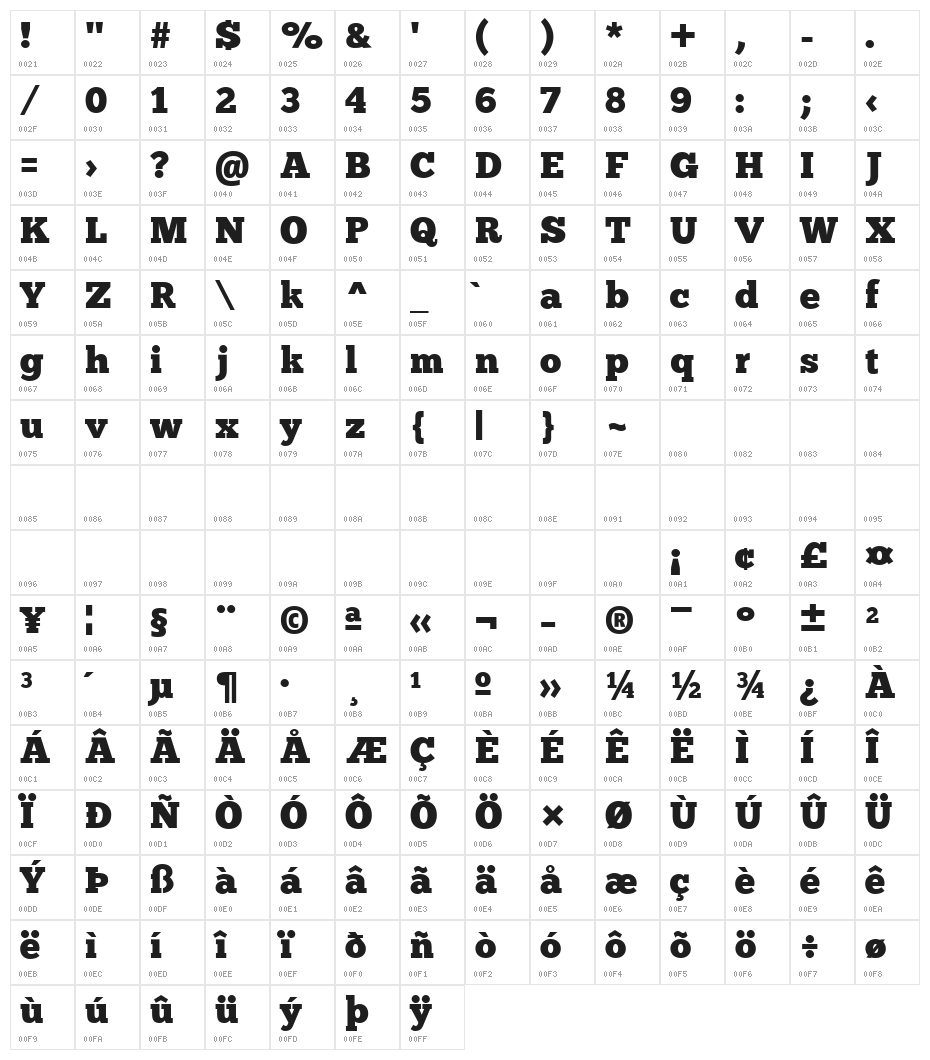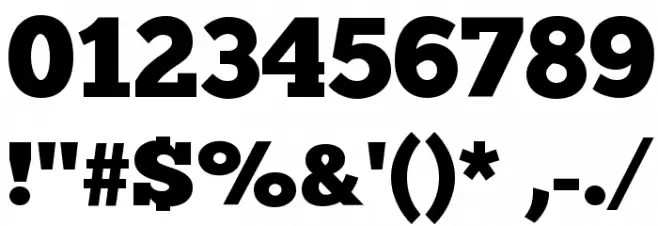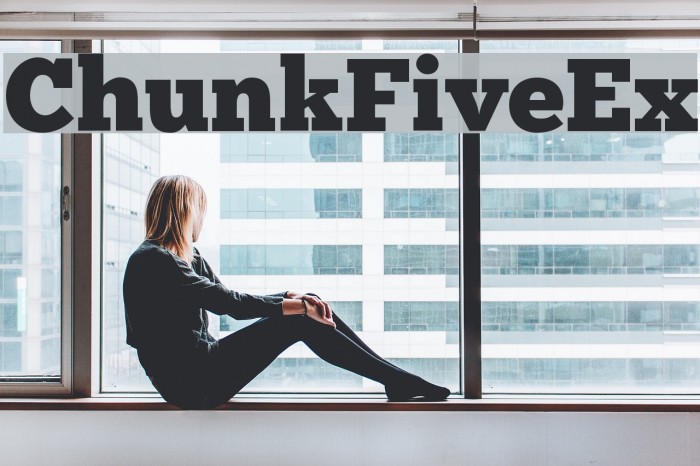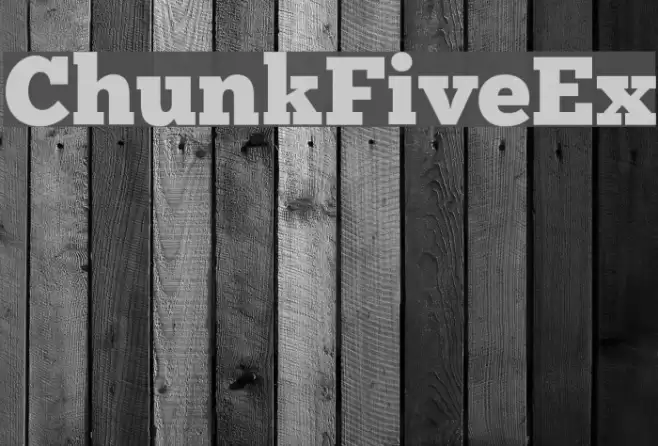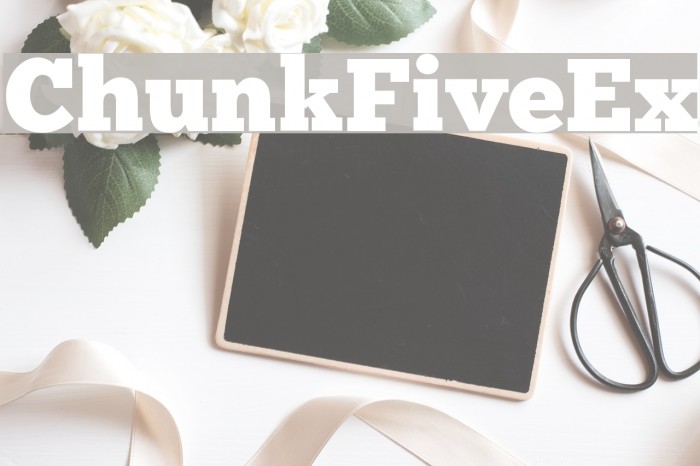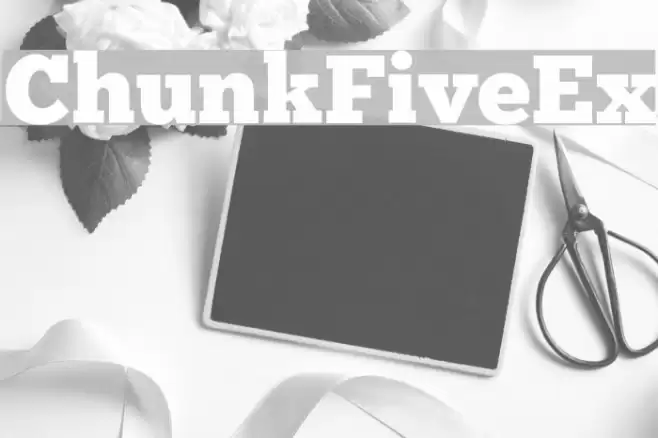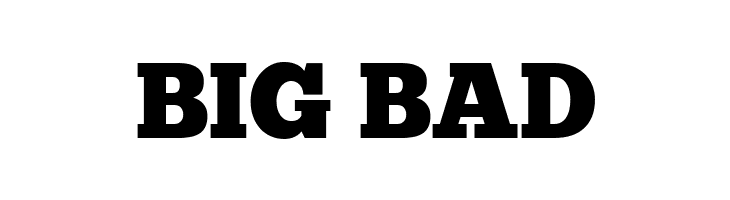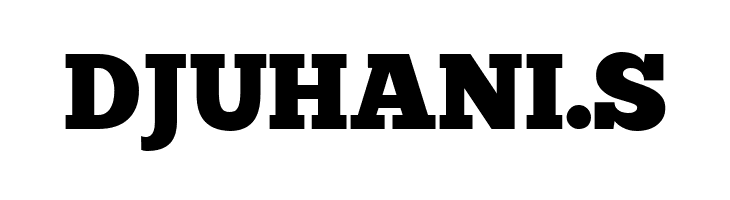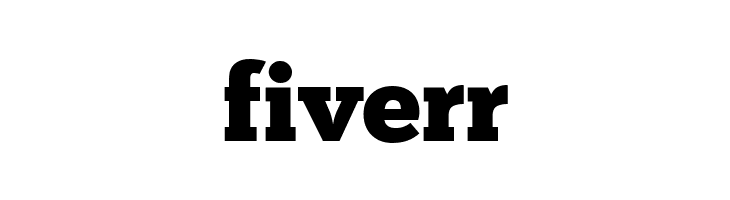
ChunkFiveEx Font
ChunkFiveEx Description
This font exhibits a bold and robust slab serif style, characterized by thick, block-like serifs and a strong presence. The uppercase and lowercase letters maintain a consistent weight, providing a uniform appearance across the text. The numerals and special characters are equally bold, ensuring readability and impact. The font's design is reminiscent of classic Western typography, making it suitable for projects that require a vintage or rustic feel. Its solid structure and clear legibility make it a versatile choice for various design applications.
| Overall Style | Vintage |
| Proposed Projects | Ideal for posters, headlines, branding, and any design needing a bold, vintage touch. |